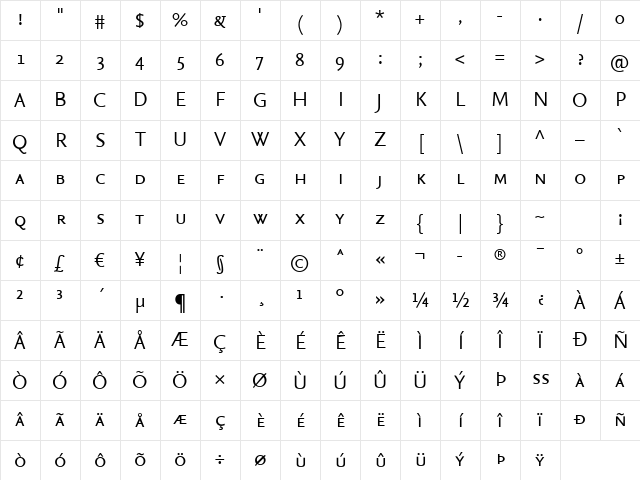
SeriaSans-RegularCaps Regular
Foundry: Martin Majoor, published by Fontshop International for the FontFont library
Design Context for SeriaSans-RegularCaps
SeriaSans-RegularCaps is a composed and adaptable typeface that performs quietly and consistently across a wide range of design contexts.
Who designed the SeriaSans-RegularCaps Regular font?